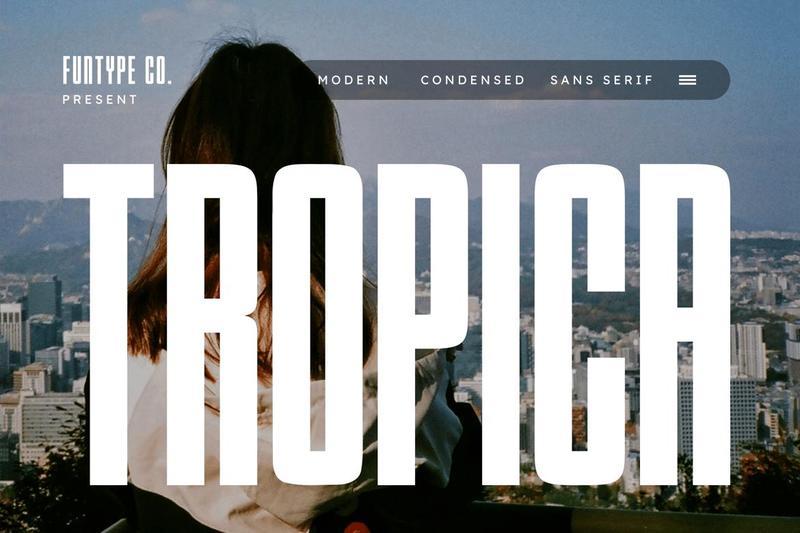
**Tropica Modern Condensed Sans Serif Font**
**Tropica** is a bold, high-impact, and modern condensed sans serif font, meticulously engineered to bring an elegant structural presence, organic visual scale, and exceptional space utility to contemporary display layouts. Featuring an ultra-narrow horizontal profile, towering vertical heights, and smoothly refined outer contours, Tropica introduces a premium travel lifestyle and global editorial aesthetic that projects immense presence and fluid contemporary movement.
This font family is the definitive choice for creative directors, digital publishers, and agency brand designers looking to implement a space-efficient, heavyweight typography identity for major text hierarchies. Whether you are constructing advanced digital broadcast overlays, high-end travel and tourism branding, cinematic adventure title sequences, luxury corporate lifestyle promotions, architectural presentation headers, or prominent website splash banners, Tropica stands out with supreme clarity and structural confidence.
**Main Features:**
– Modern Condensed Sans Structure: Optimized with an ultra-narrow footprint for dense, space-saving, and high-impact title compositions.
– Towering Geometric Dimensions: Elongated vertical heights crafted to secure instant audience attention in publication layouts.
– Dynamic & Premium Aesthetic: Smooth curved outer corners balanced with rigid interior lines for a clean, contemporary look.
**Best Used For:**
High-end editorial layout design, travel and hospitality branding, luxury lifestyle photography titles, cinematic title sequences, real estate firm marketing materials, modern city signage panels, and prominent online media splash banners.